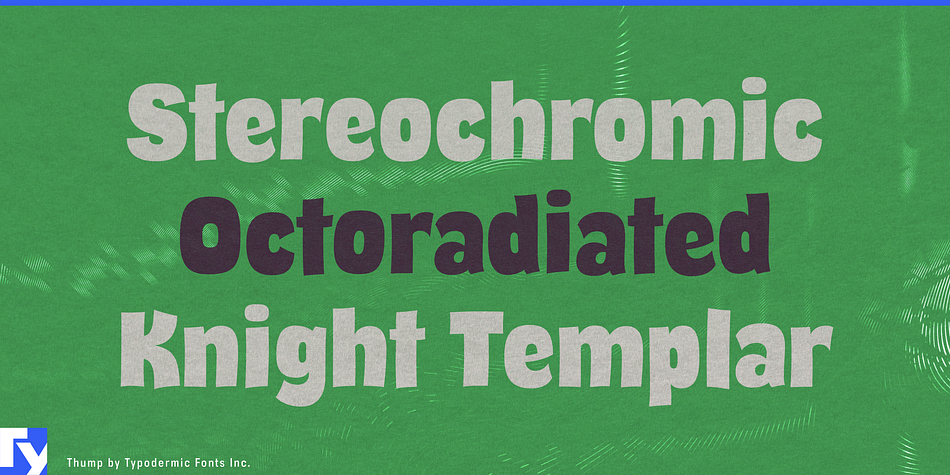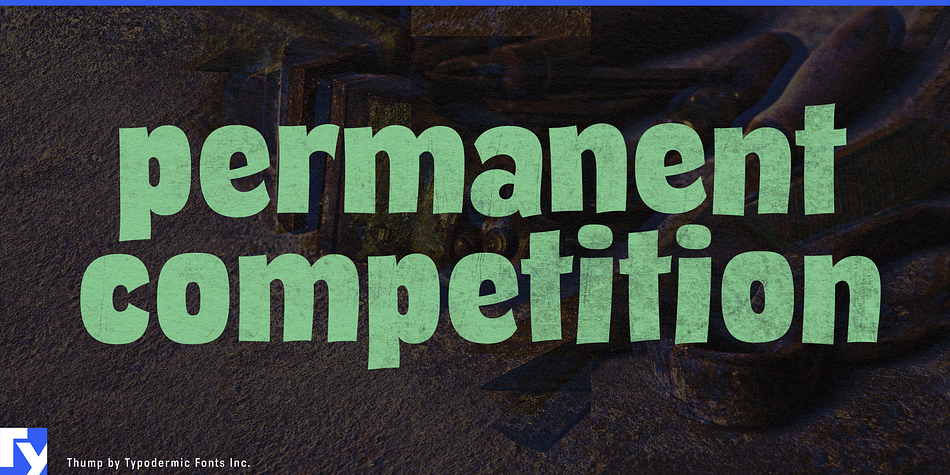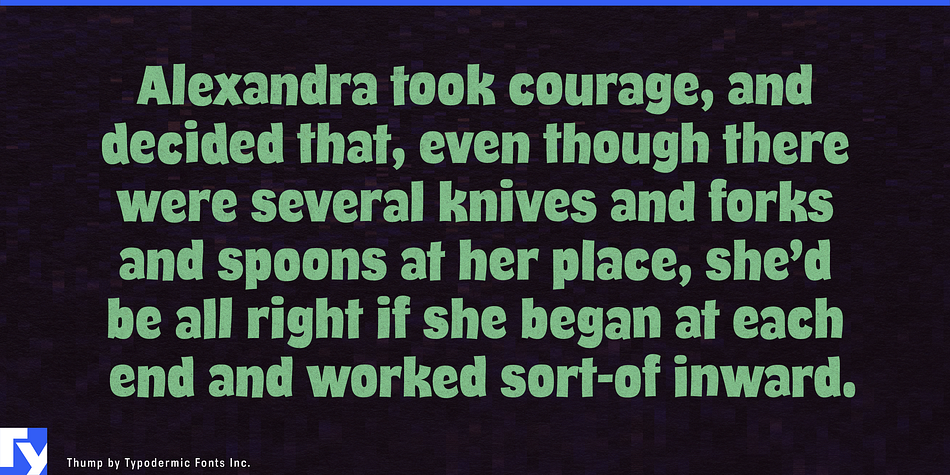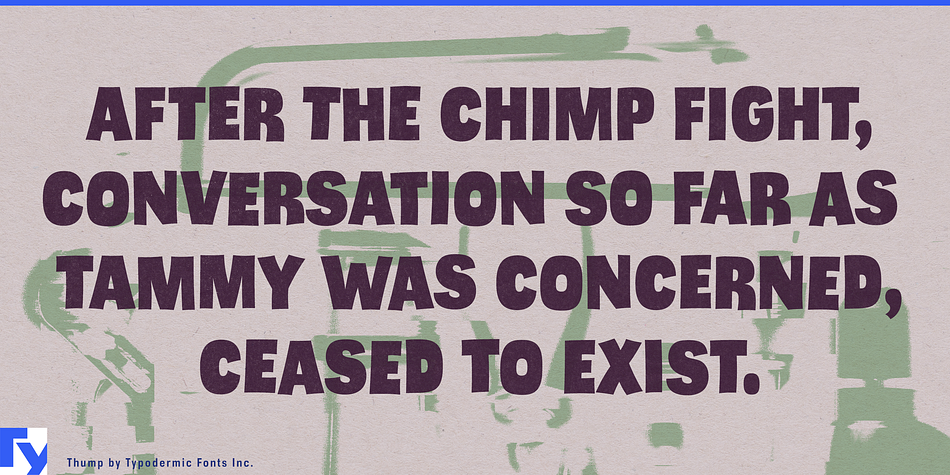
Thump is a kids font published by Typodermic Fonts Inc.
Thump is a fat, casual, sans-serif headliner. In OpenType savvy applications, common letter pairs are automatically substituted to create a pseudo-random, ultra-casual effect.